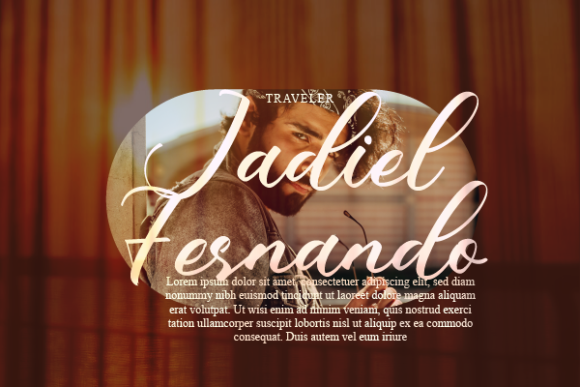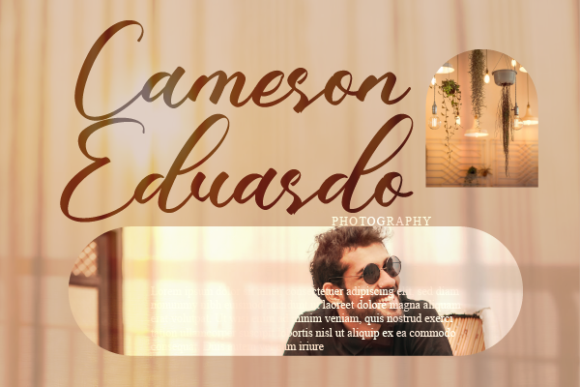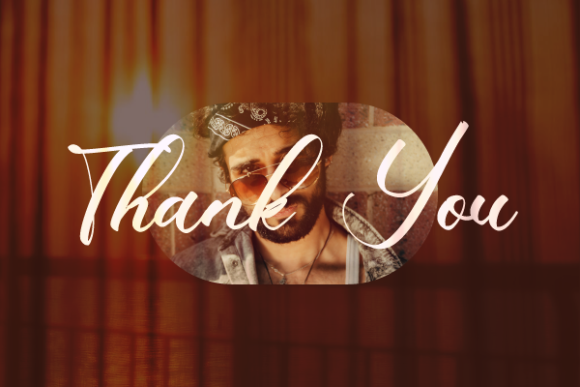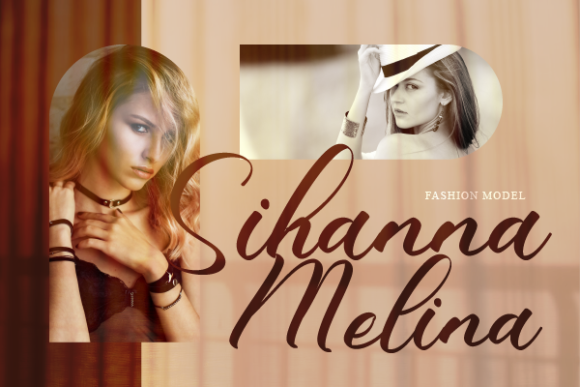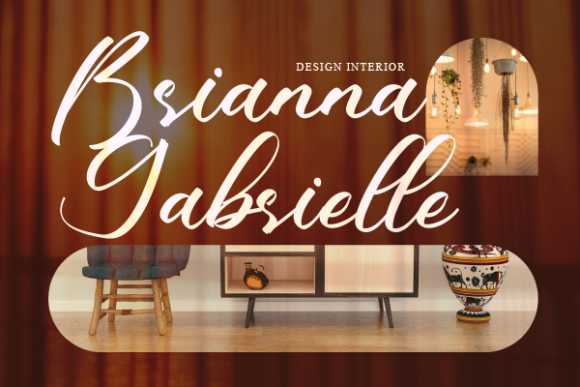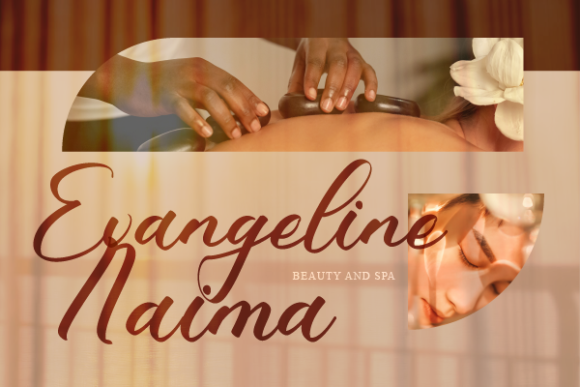
Frances Shaniya Font
About Frances Shaniya Font
Frances Shaniya is a lovely script font featuring charming, playful characters that seem to dance along the baseline. Add this font to your most creative ideas, and notice how it makes them stand out!